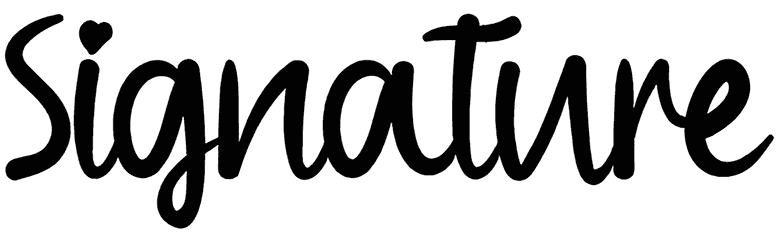
Signature Font
If you are into classic and memorable styles, this handwritten font can attract you. The Signature, with its elegant and natural pen-lettered face, can beautify the words of any subject and project. Place this script font on your intended designs, for example, postcards, flyers, logos, tattoos, or the like, and make them an adorable vibe.